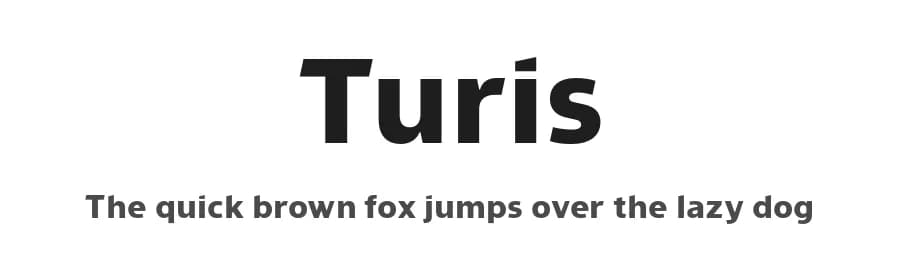
About Turis Font
Features:
651 glyphs in 18 fonts
110 alternative glyphs
4 stylistic sets
15 OpenType features
Turis is a modern humanist sans serif font designed by Mihai Sorin and published by Punchform in 2021. The family has 18 weights 9 uprights and 9 italics ranging from Thin to Black. The Light and ExtraBold weights are free of charge, so you can use them for both personal and commercial projects.
Turis allows graphic designers to create advanced typographical layouts by offering 110 alternative glyphs and 4 stylistic sets.
Each weight includes extended language support and 15 powerful OpenType features such as stylistic alternates, contextual alternates, standard ligatures, glyph composition/decomposition, localized forms, case-sensitive forms, ordinals, proportional figures, tabular figures, slashed zero, numerators, denominators, fractions, superscript, and subscript.
Turis Font is a versatile sans-serif font that works for both headings and body text. Pair it with a contrasting serif or slab serif font to add visual interest and a clear distinction between titles and body copy.
Turis Font